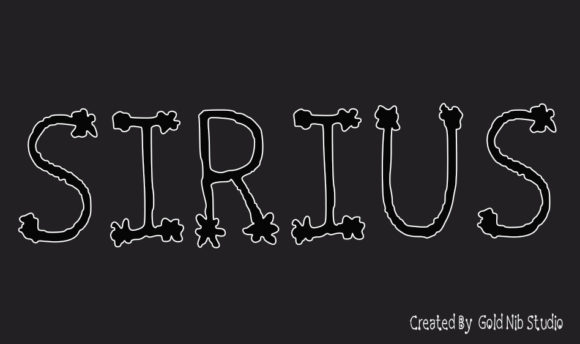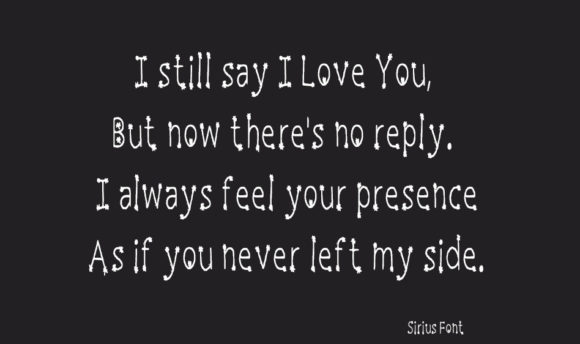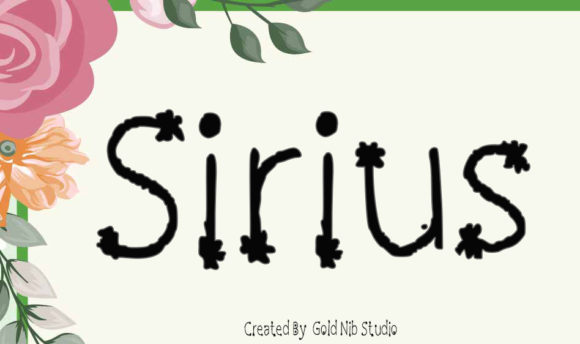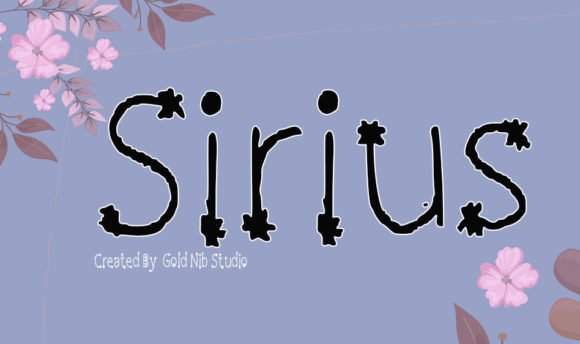
Introduction to Sirius Font
Sirius is sweet handwritten font.
It has beautiful and well-balanced characters and as a result, it matches a variety of cute design ideas It is suitable for logotype, headline font, in corporate identity, brand identity, apparel industry, poster, music, movie, game, magazine, book, comic, cartoon, YouTube, Instagram, website, or any of your creative design projects.